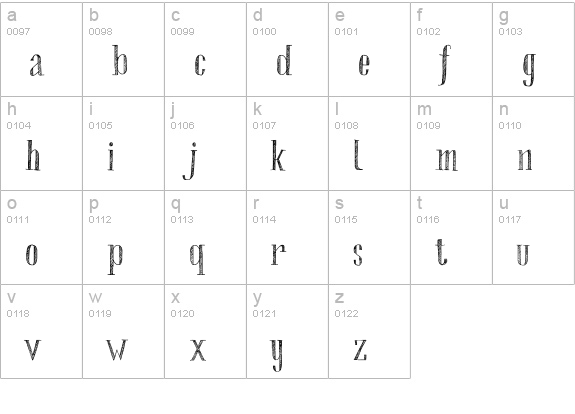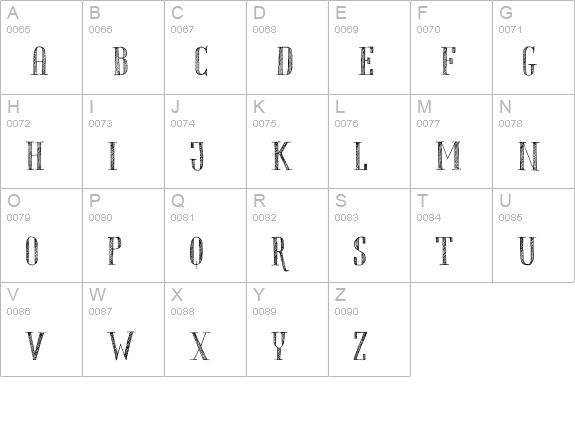
Chameleon Sketch Hatch font is a unique and playful typeface that exudes creativity and charm. With its hand-drawn style and quirky design, this font is perfect for adding a fun and whimsical touch to your projects. The irregular lines and sketchy appearance give it a dynamic and energetic feel, making it ideal for a variety of design applications. What's even better is that Chameleon Sketch Hatch font is available for free download at FontsMarket.com. You can easily access this delightful font and use it in your personal and commercial projects without any cost. Embrace the artistic flair of Chameleon Sketch Hatch font and let your creativity shine with this one-of-a-kind typeface.